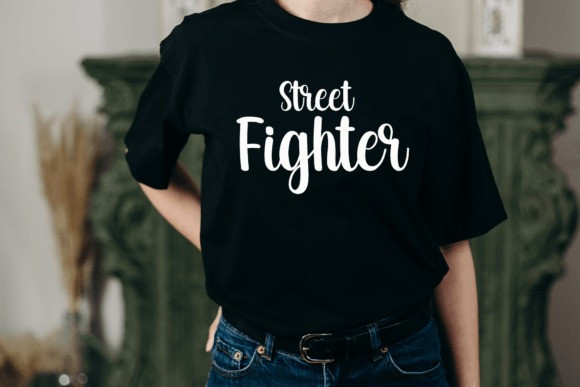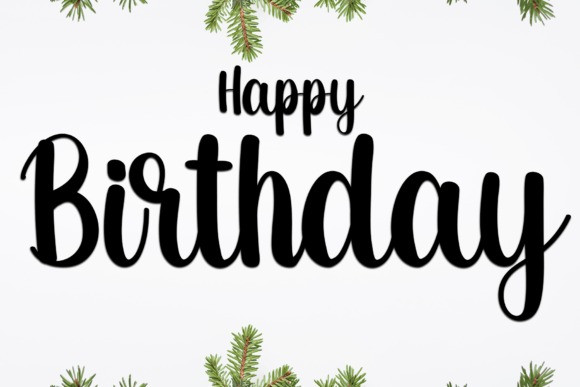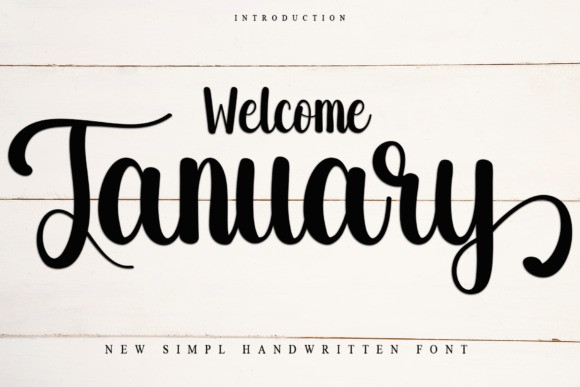
Welcome January Script Font
Welcome January Script Font is a cool, simple, and playful handwritten font. Incredibly versatile, this font fits a wide pool of designs, elevating them to the highest levels. Add this font to your favorite creative ideas, and notice how it makes them come alive!